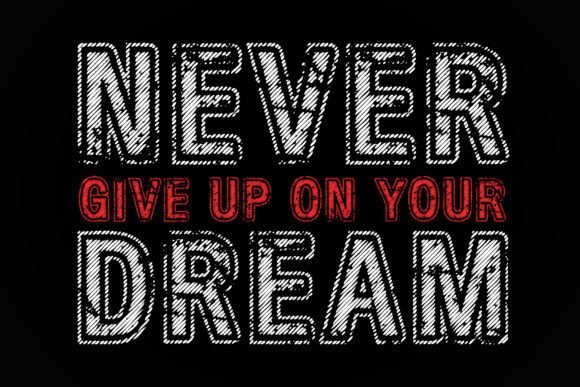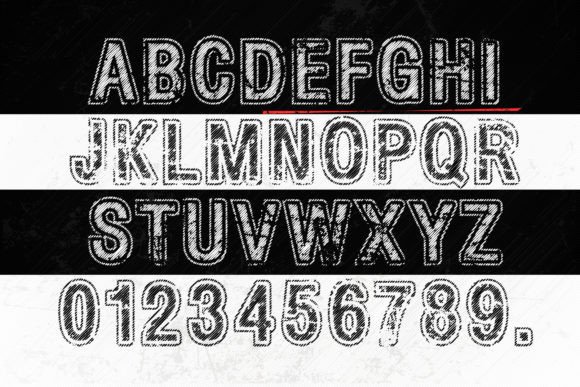
Big Grunge Font
Big Grunge is a cool sport display font with a heavily distressed texture. No matter the topic, this font will be an incredible asset to your fonts’ library, as it has the potential to elevate any creation.